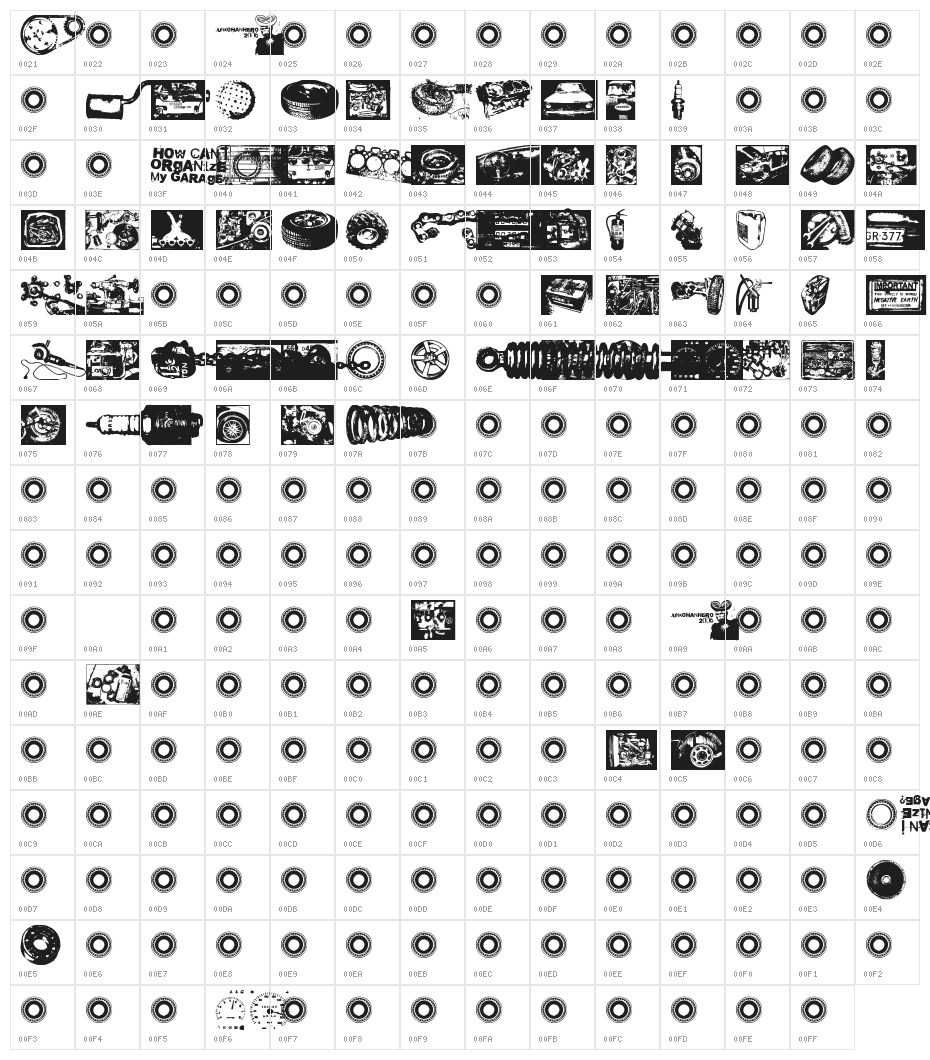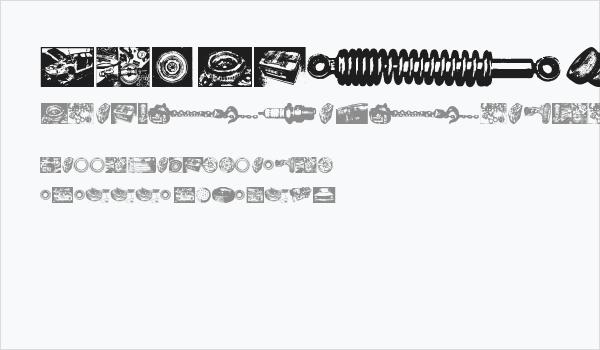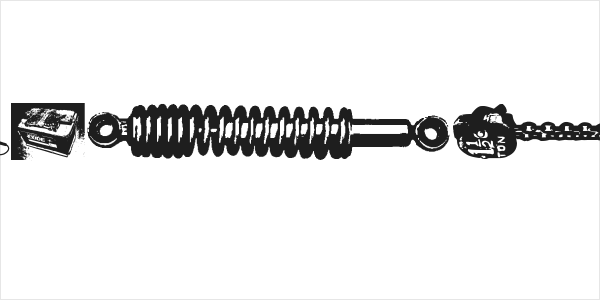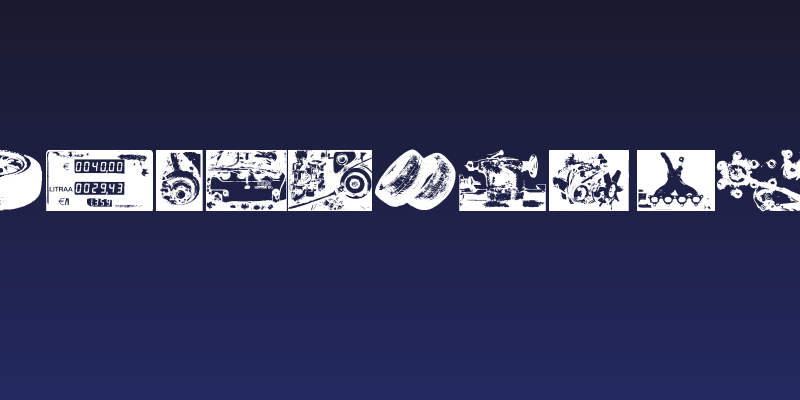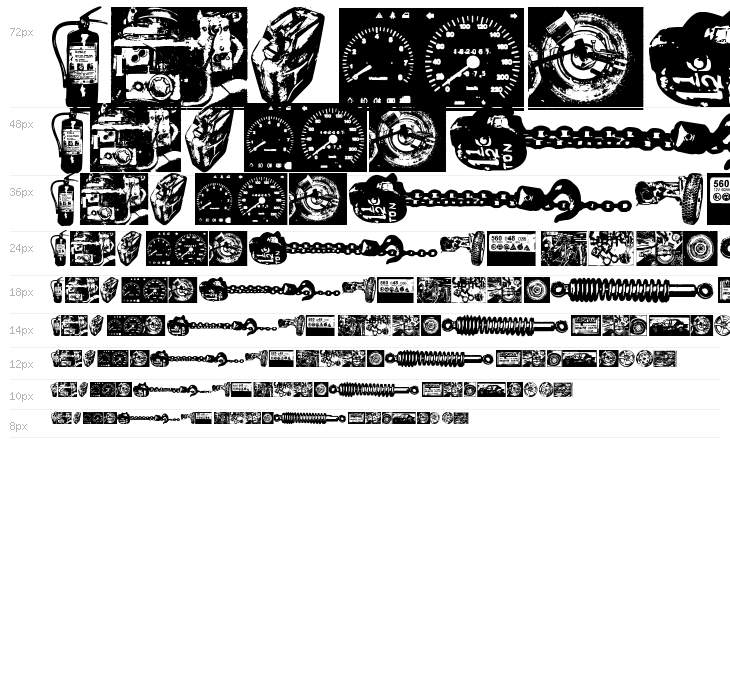
How Can I Organize My Garage? Font
How Can I Organize My Garage? Description
A decorative display font composed of various garage and automotive-themed illustrations forming each character, with high visual complexity and unique pictorial elements instead of traditional letterforms.
| Overall Style | Decorative, Thematic, Playful |
| Use Case | Headlines, Logos, Posters, Themed graphics |
| Proposed Projects | Posters, themed event flyers, automotive shop branding, novelty signage, creative headlines. |